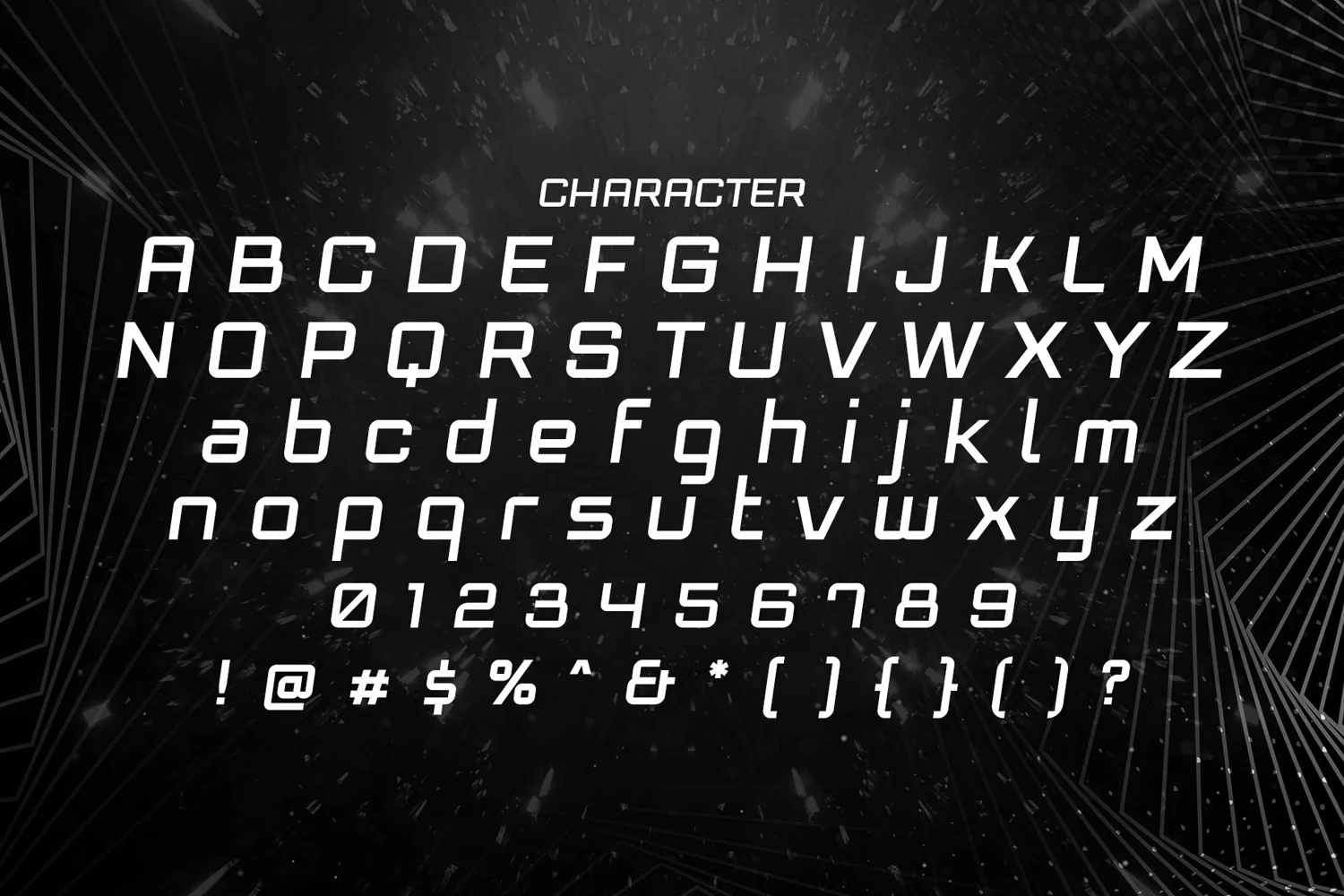
Necto is a new modern futuristic typeface. Perfect for display, poster, quotes, film, craft needs, book cover, business card, packaging, merchandise, branding, logo, logotype, header, title, and many more.